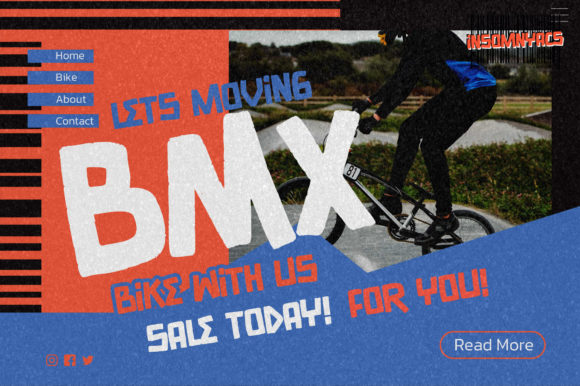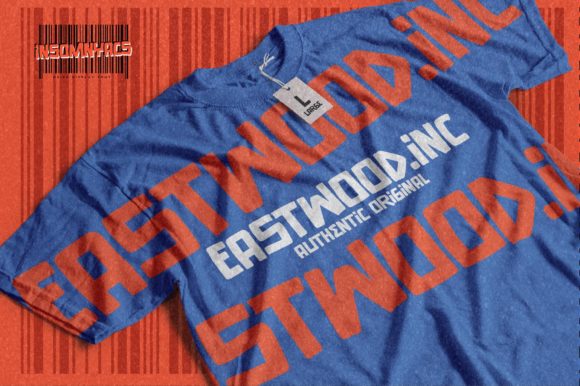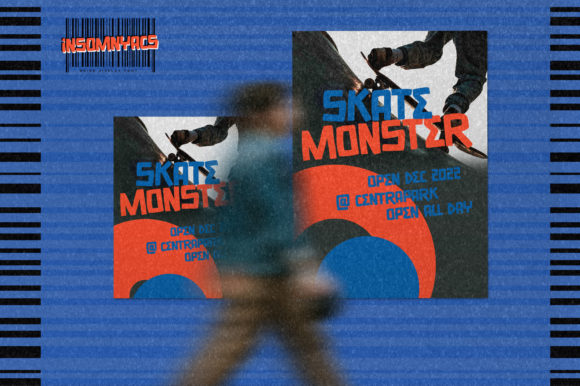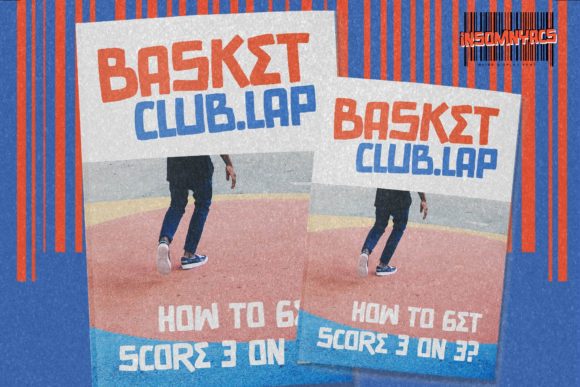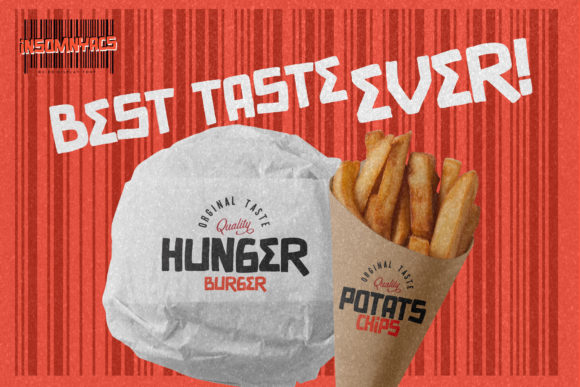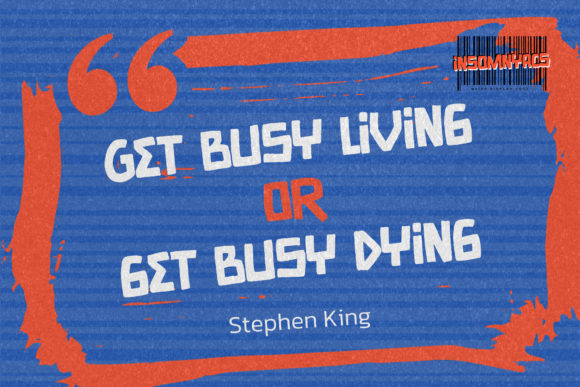
The Perfect Typography for Your Midnight Masterpieces
Have you ever been stuck in a creative rut, staring at your screen at 3 AM, desperate for that one spark that will bring your design to life? We’ve all been there, and it’s in those moments of pure exhaustion and frustration that we stumble upon something truly magical. For designers, the hunt for the perfect typography is an ongoing quest, and we’re excited to introduce you to the Insomnyacs Font – a game-changing display font that will make your designs stand out from the crowd.
With its bold, squared letters, Insomnyacs Font is the perfect addition to any designer’s toolkit. Whether you’re working on a graphic novel, a logo, or a social media campaign, this font is sure to bring a touch of sophistication and style to your work. And the best part? It’s surprisingly easy to use, even for those late-night design sessions when your eyes are glued to the screen.
Insomniacs Font Key Features
- Font Size: The font family includes 4 weights: Light, Regular, Medium, and Bold, each with 8 styles, offering a total of 32 fonts in various sizes and weights.
- Unique Characteristics: The font features a unique blend of modern and vintage elements, with a focus on clean lines, geometric shapes, and subtle texture, giving it a distinctive and eye-catching look.
- Language Support: Insomniacs Font supports a wide range of languages, including Latin, Cyrillic, Greek, and many others, making it an excellent choice for multilingual projects.
- Scalability: The font is designed to be highly scalable, with clear and legible results at both small and large sizes, ensuring it remains readable and effective in various contexts.
Insomnyacs Font Review
I was excited to dive into the Insomnyacs font, with its promise of a quirky and modern aesthetic. ✨ Upon initial use, I found that it works well in certain situations: it’s perfect for titles and headings where you want to add a touch of whimsy and playfulness. The font’s irregularities and imperfections add a nice human touch, making it stand out in a crowded design landscape.
One of the things I appreciated most about Insomnyacs is its versatility. ✨ It’s available in multiple weights and styles, allowing you to mix and match to suit your design needs. This is especially useful for creating a consistent visual identity across different elements of your project.
- ⚠️ Insomnyacs may not be the best choice for body text, as its irregularities can make it difficult to read. The font’s spacing and letterform inconsistencies can lead to fatigue and discomfort for the reader.
- ⚠️ Additionally, the font may not be suitable for formal or professional designs, as its quirky nature may come across as unpolished or amateurish.
While Insomnyacs has its strengths, I wouldn’t recommend it as a go-to font for every project. However, it’s a great choice when you want to add a touch of personality and whimsy to your design. With careful use and consideration of its limitations, Insomnyacs can be a valuable addition to your design toolkit.
Practical Application Guide: Insomnyacs Font
Insomnyacs Font is a unique and playful font that can add a touch of whimsy to your designs. To use it, follow these steps:
Tips for Getting the Most Out of Insomnyacs Font
To get the most out of Insomnyacs Font, try using it in bold and italic styles to add emphasis to your text. You can also use it in combination with other fonts to create a unique and eye-catching design.
Experiment with different font sizes and colors to create a visually appealing design. You can also use Insomnyacs Font as a title font or for headings to add a touch of whimsy to your design.
Insomnyacs Font is perfect for designs that need a playful and creative touch, such as:
Children’s book illustrations
Party invitations and decorations
Food and drink branding
Marketing and advertising materials